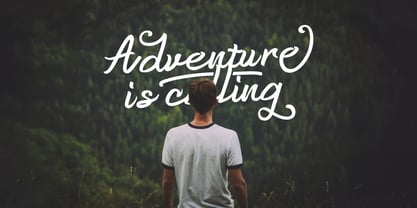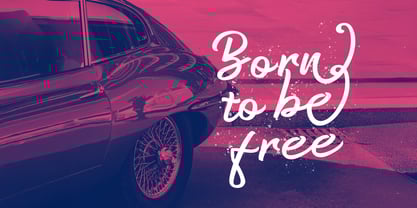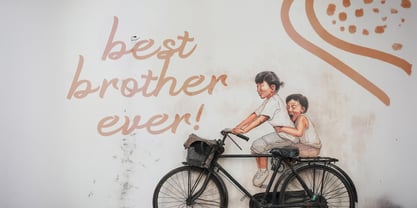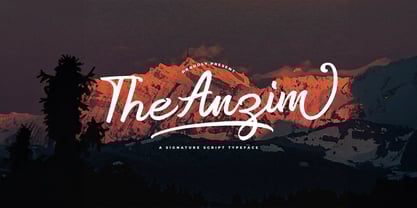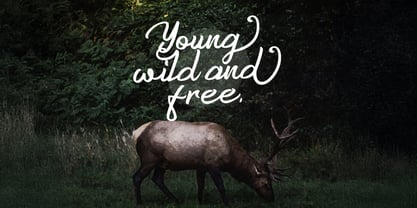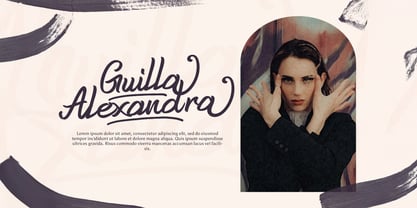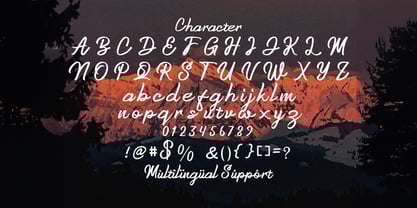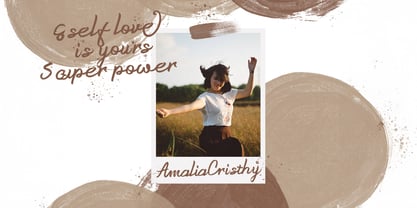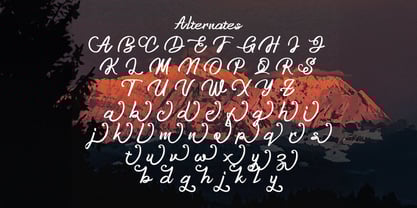
The Anzim Font Family was designed by Virgiawan Listanto and published by Stringlabs Creative Studio. Anzim contains 1 styles. More about this family
Anzim is a captivating signature script font that exudes sophistication and personal flair. Whether you're creating a luxurious logo, high-end invitations, stylish branding, or unique stationery, Anzim brings a sense of individuality and class to every project.